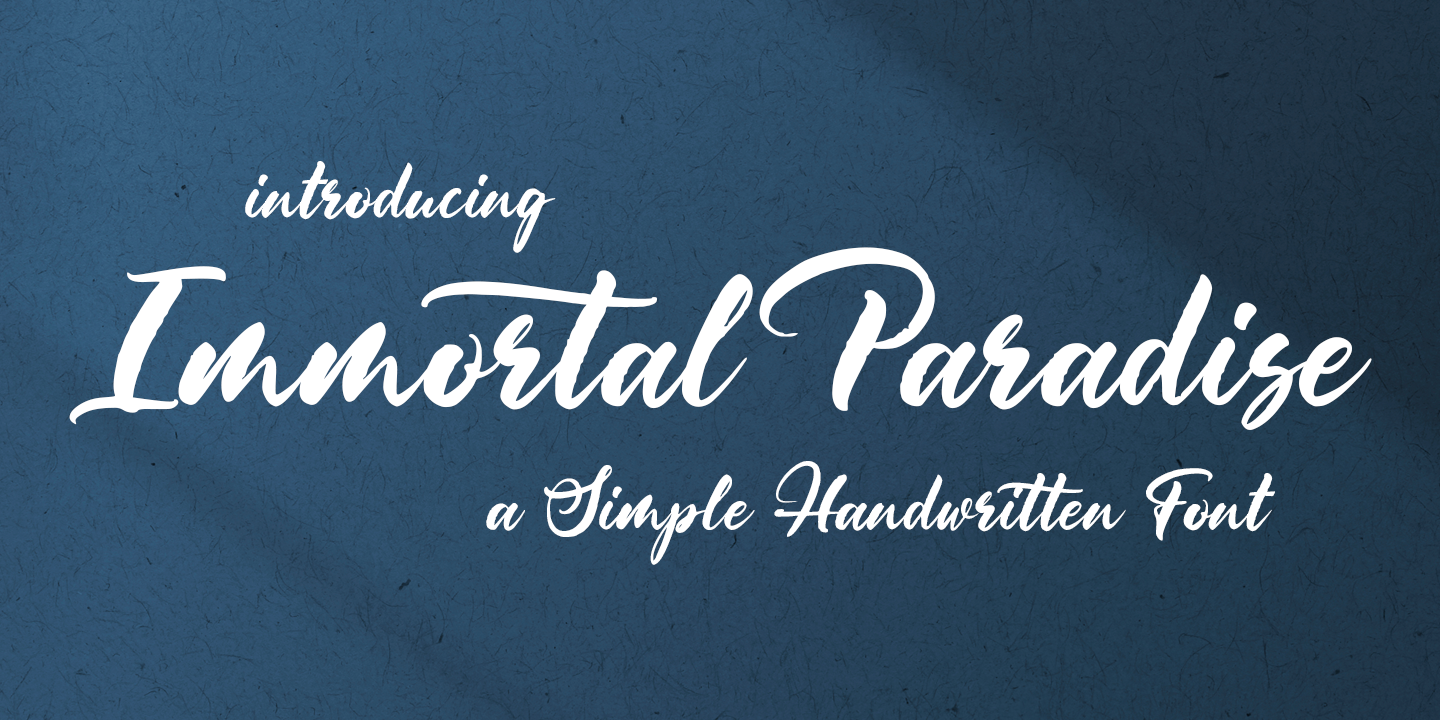
Please note, you must purchase this font for commercial use. You can download Immortal Paradise Font Free Download for testing purposes and experience its luxurious, artistic flair firsthand. Immortal Paradise Font stands out with its elegant calligraphic style, making it perfect for premium branding, wedding invitations, fashion editorials, sophisticated event materials, and upscale marketing campaigns.
The intricate details, fluid strokes, and artistic swashes of Immortal Paradise Font lend a unique blend of sophistication and charm to your creative projects. Graphic designers and brands looking to convey elegance and exclusivity consistently choose Immortal Paradise Font Free Download to enhance their visual storytelling and attract attention with its refined aesthetic.
This font works exceptionally well in both print and digital formats, ensuring clarity, readability, and visual appeal. Its versatility makes it a favorite choice among designers for creating impactful headlines, luxury logos, and memorable brand identities. Immortal Paradise Font Free Download includes multilingual support, broadening its usability for international projects and diverse audiences.